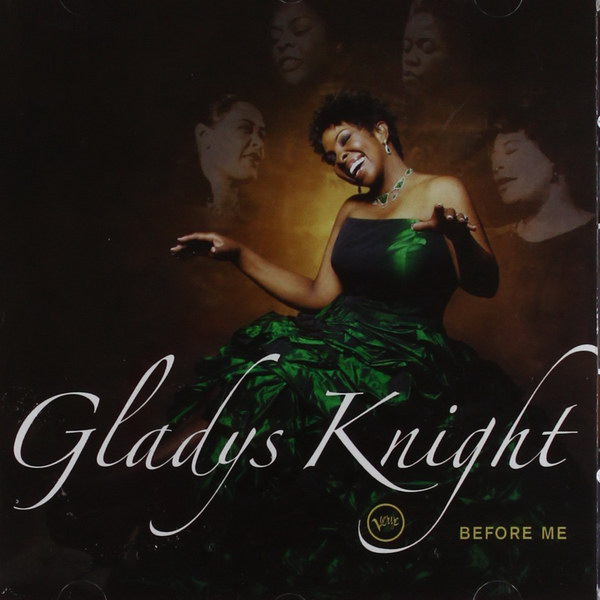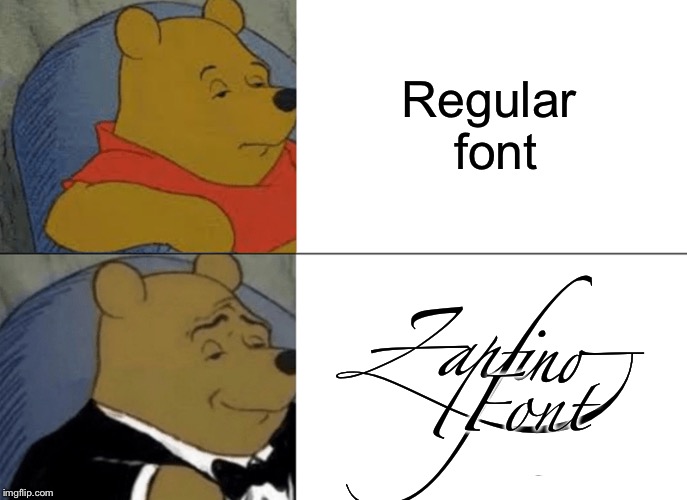
For its advanced typographic features, apple inc. Designed in collaboration with akira kobayashi, zapfino extra has a. Hermann zapf created the palantino, poptima and zapfino fonts as he was an advocate for font rights;
The Basic Zapfino Font Family, Released In 1998, Consists Of Four Alphabets With Many Additional Stylistic Alternates That Can Be Freely Mixed Together To Emulate The Variations In Handwritten Text.
Designed in collaboration with akira kobayashi, zapfino extra has a. Licensing options and technical information. This demanding font attains many seasoned peculiarities and highbrow designs format.
Hermann Zapf Created The Palantino, Poptima And Zapfino Fonts As He Was An Advocate For Font Rights;
You can easily utilize this font and give your designs a professional texture appearance. Zapfino is a calligraphic typeface designed for linotype by typeface designer hermann zapf in 1998. What is a font generator (font changer)?
Its Advanced Features And Characteristics Make This Font Worth Using In Your Projects.